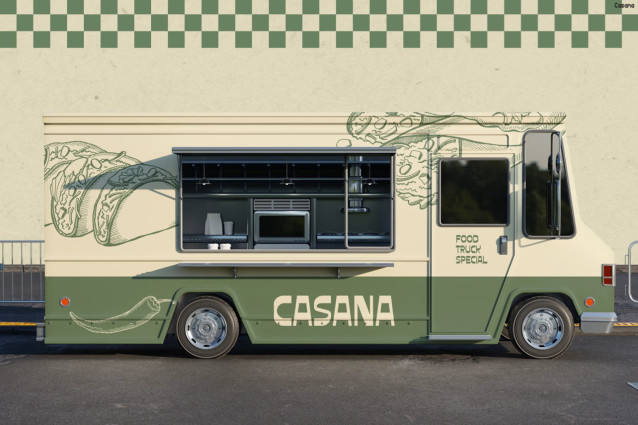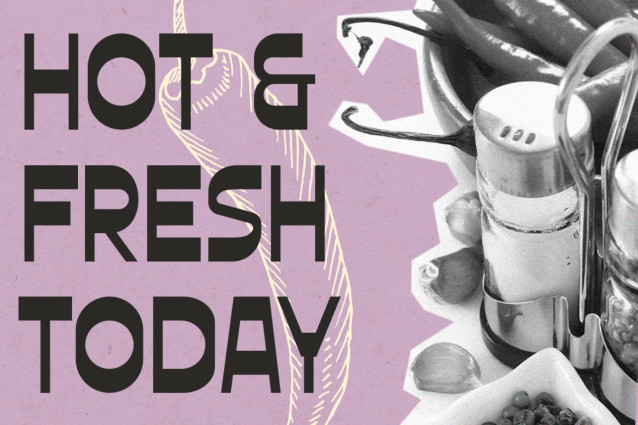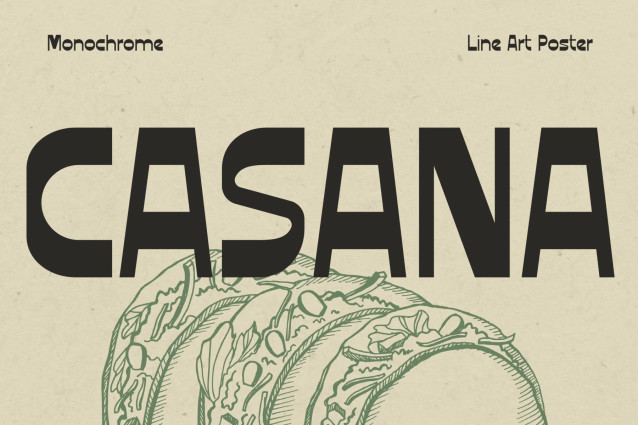
Casana Font
Retro Font Casana – Bold Vintage Energy for Modern Food Branding
Retro Font Casana delivers a bold vintage aesthetic with chunky letterforms, playful curves, and a handcrafted retro vibe that instantly captures attention. Moreover, the strong visual character makes every design feel energetic, authentic, and stylish at the same time. Inspired by classic diner signage, nostalgic packaging, and trendy food truck graphics, this font creates a warm retro atmosphere while still looking modern and highly readable.
In addition, the balanced letter structure helps headlines stand out clearly across both print and digital media. As a result, your branding looks more professional and visually striking in every layout.